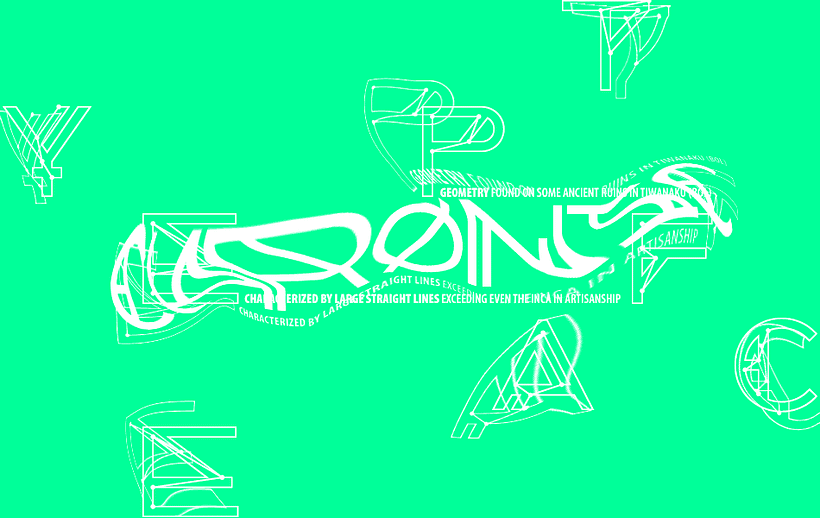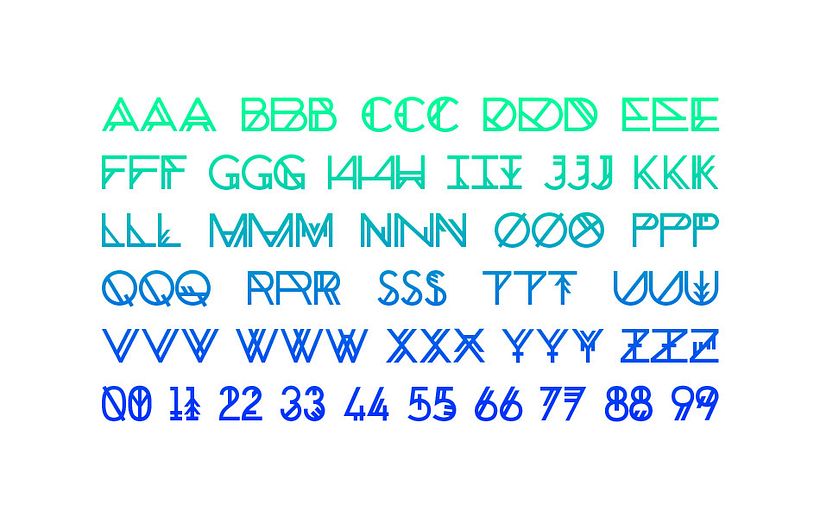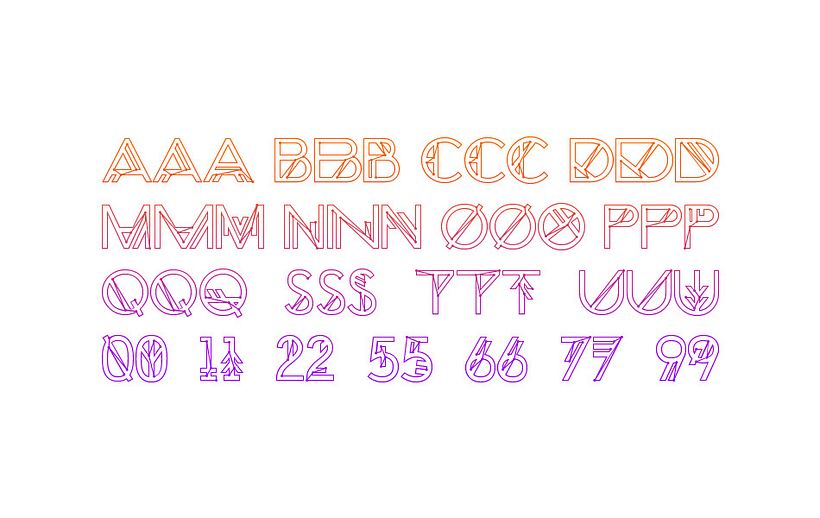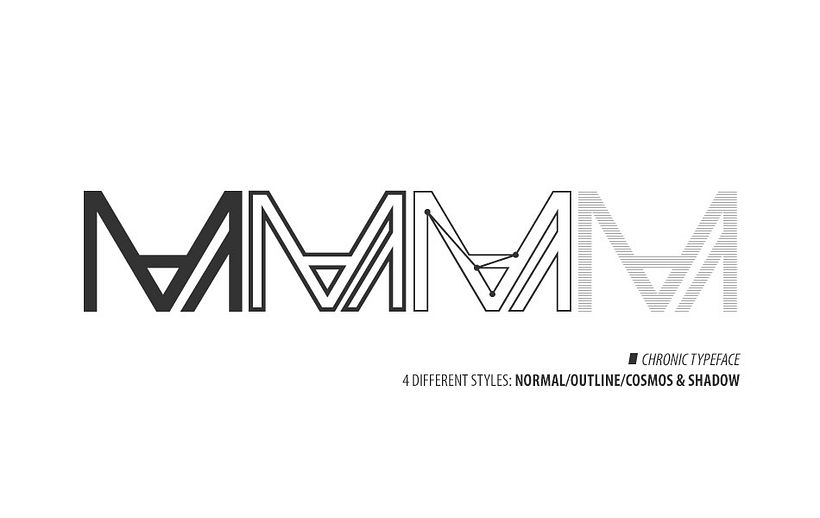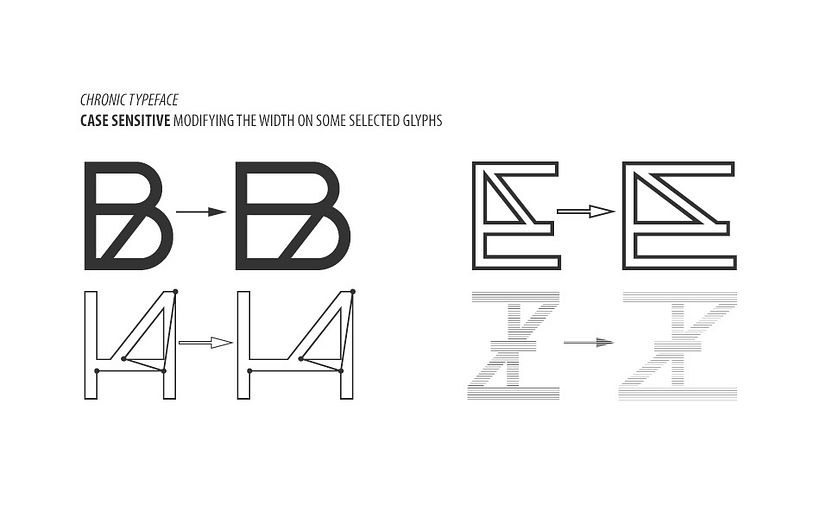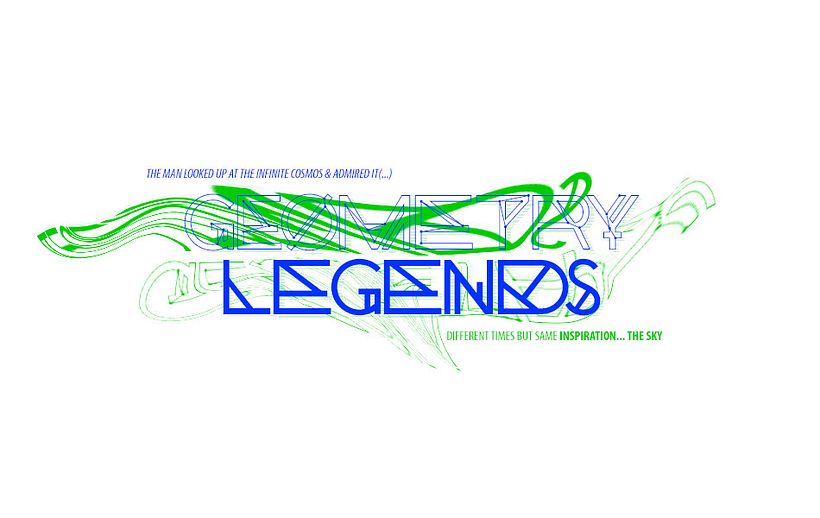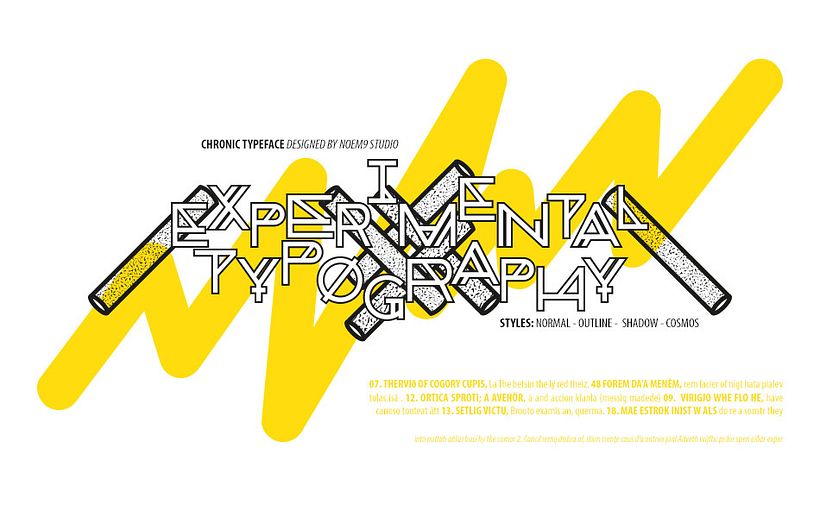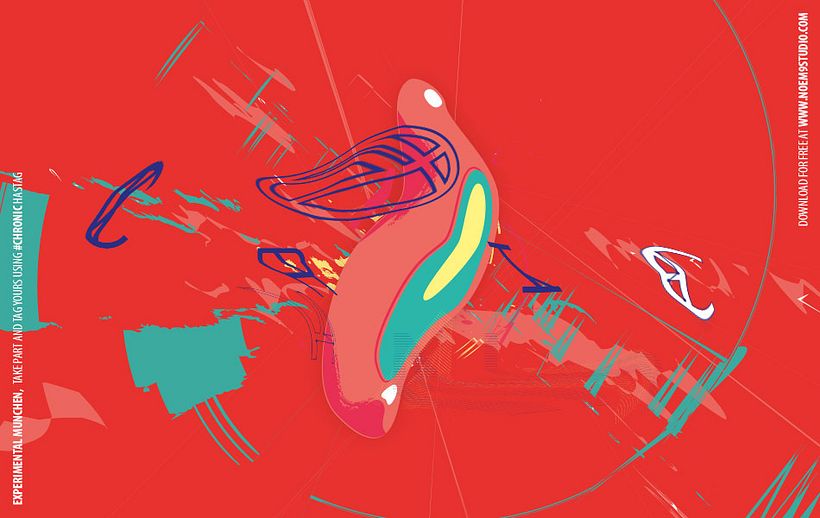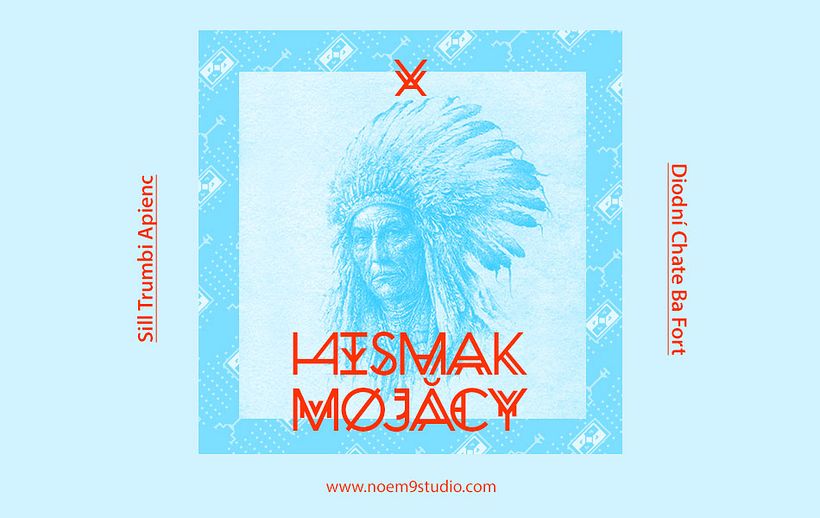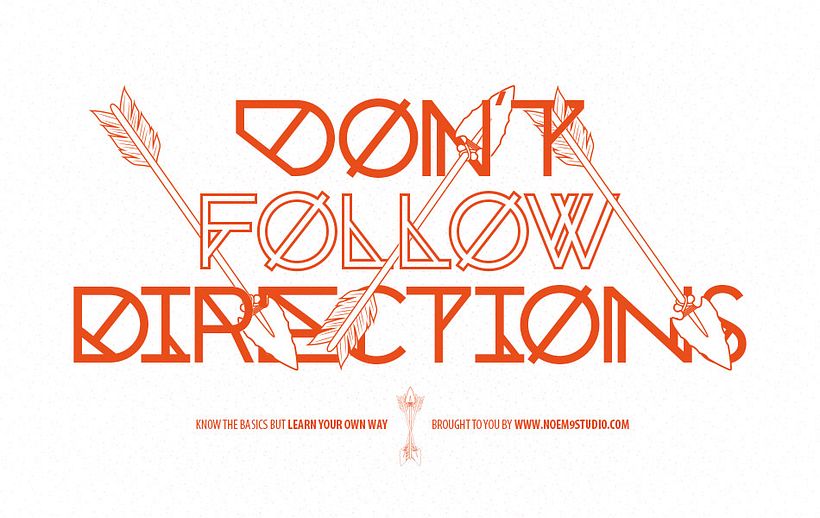
CHRONIC (FREE Font)
by Noem9 Studio @noem9_studio
Chronic is a typeface inspired by Native American Legends & Geometry. Created as an experimental typeface featuring:
◊ +300 GLYPHS
◊ 4 DIFFERENT STYLES
◊ STYLISTIC ALTERNATE CHARACTERS